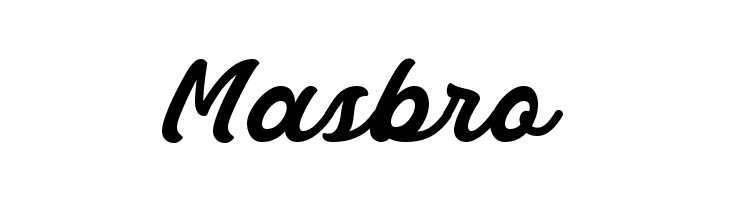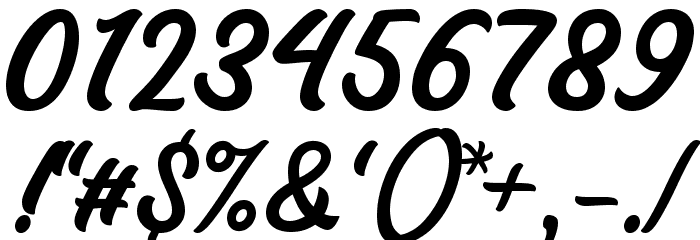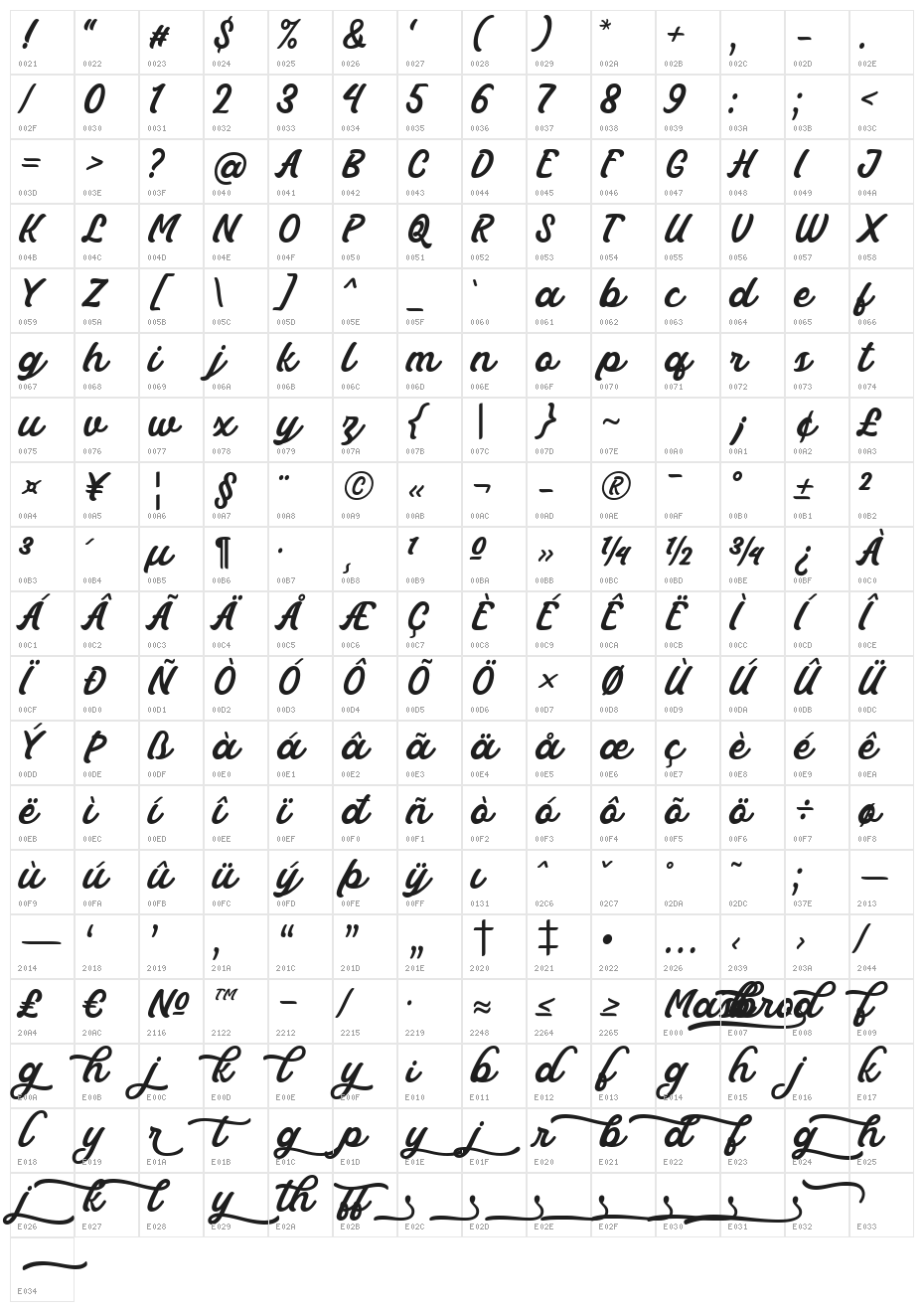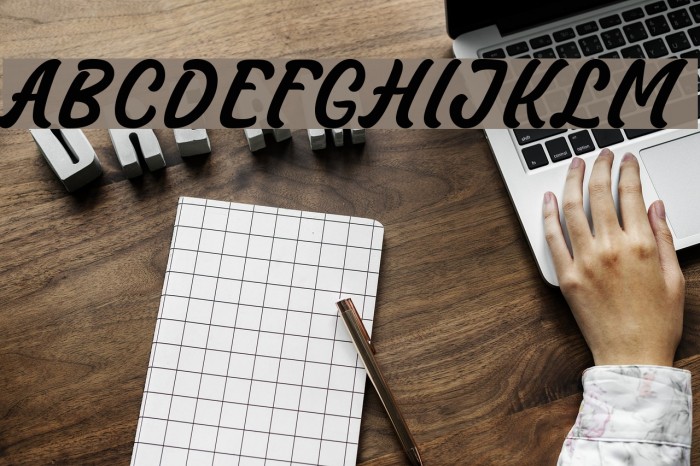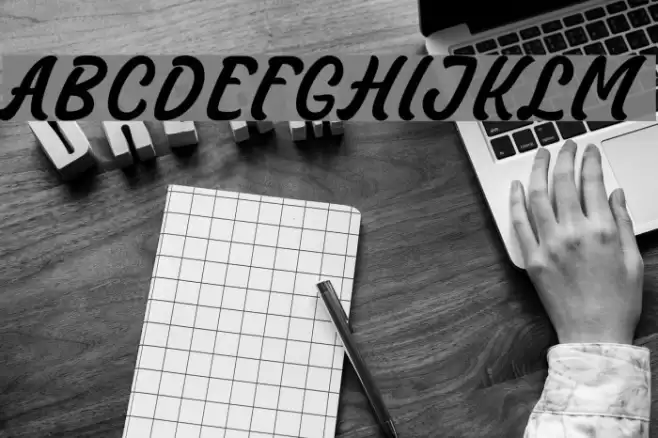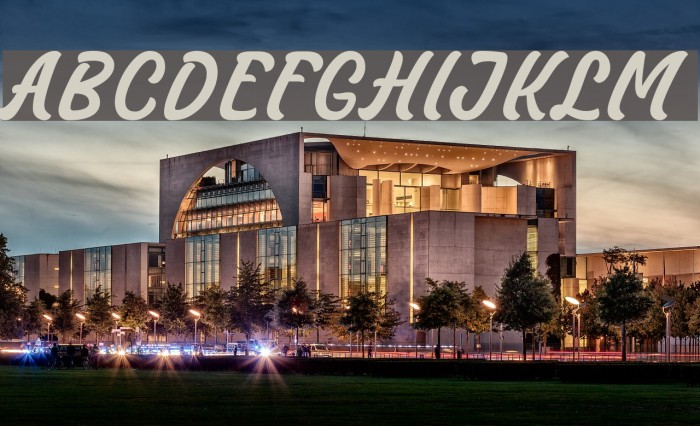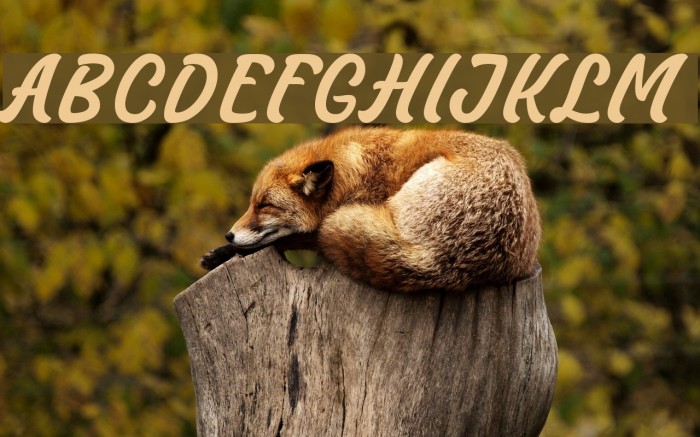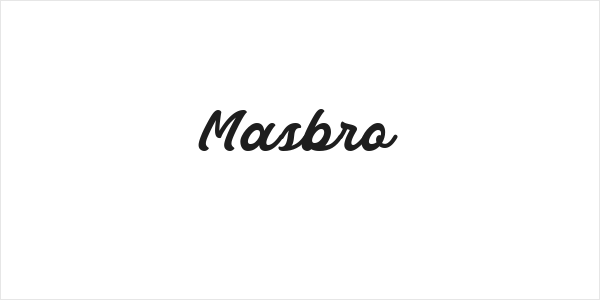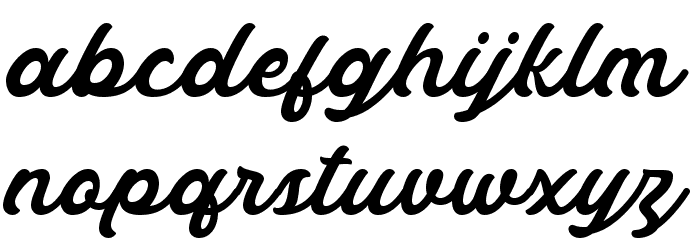
Masbro Font
Masbro Description
This font features a bold and flowing script style, characterized by its smooth, cursive letterforms that convey a sense of elegance and fluidity. The uppercase letters are slightly more pronounced, with a consistent stroke width that adds to the font's bold appearance. The lowercase letters maintain a harmonious flow, with gentle curves and loops that enhance readability while preserving the script's artistic flair. The numerals are rounded and consistent with the overall style, providing a cohesive look. Special characters are integrated seamlessly, maintaining the font's aesthetic appeal. This font is ideal for projects that require a touch of sophistication and creativity.